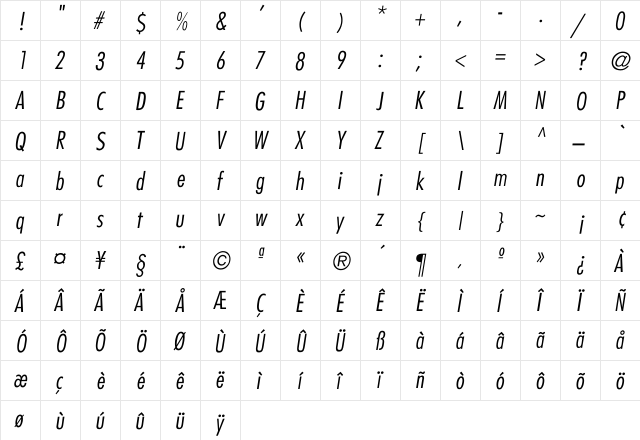
Belmar-CondensedLight-Italic Regular Font Preview
Design Context for Belmar-CondensedLight-Italic Typeface
Belmar-CondensedLight-Italic takes a measured approach to typography — its balanced proportions and neutral character make it a reliable workhorse for both digital and print work. Its italic angle brings a sense of urgency and motion to the letterforms. Its slender proportions lend an understated elegance to any composition. The condensed width makes it efficient for tight spaces without sacrificing legibility.
Pro Tip: Use Belmar-CondensedLight-Italic for emphasis, pull quotes, and subheadings where its slanted energy can add rhythm to the layout.